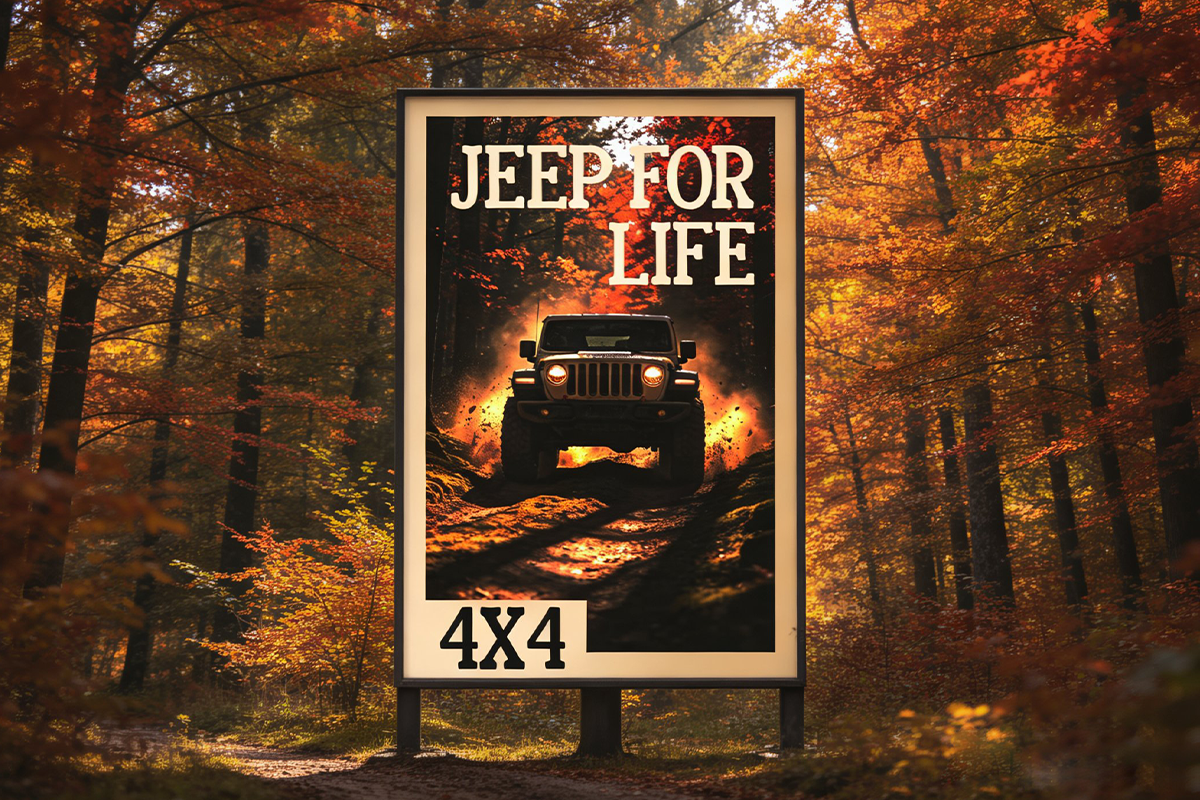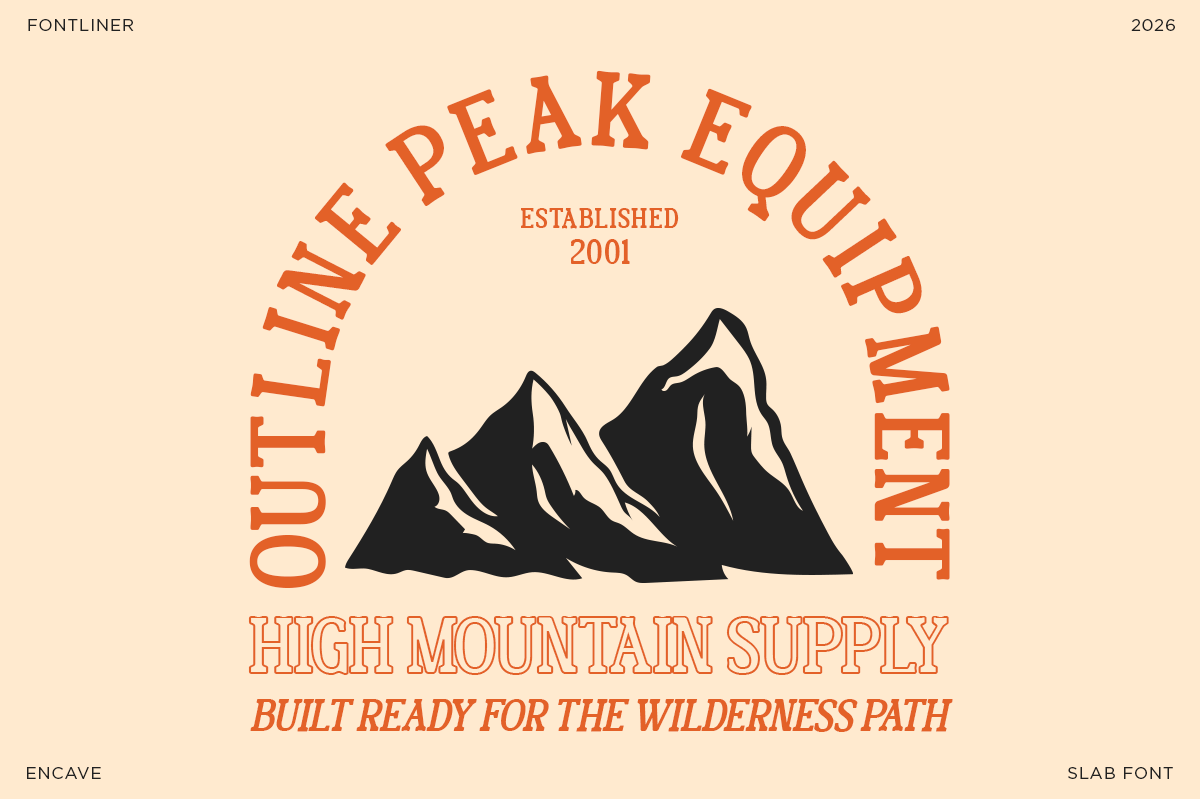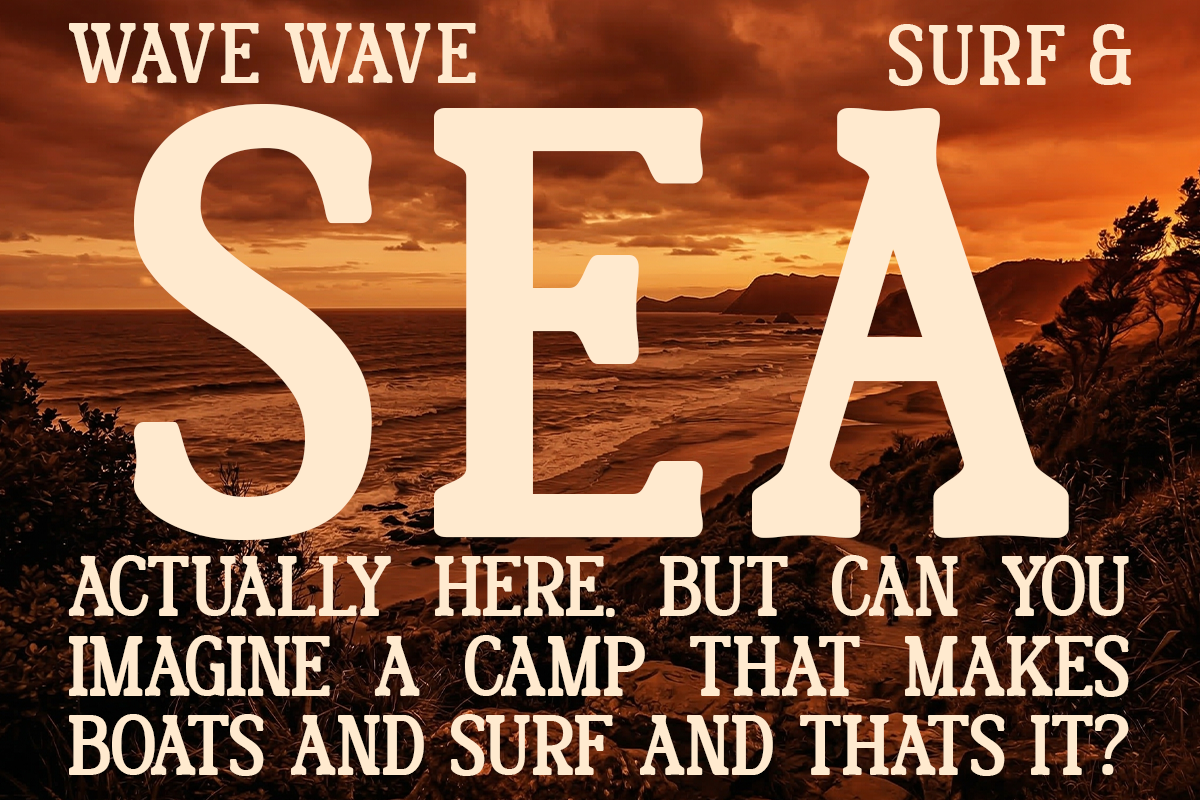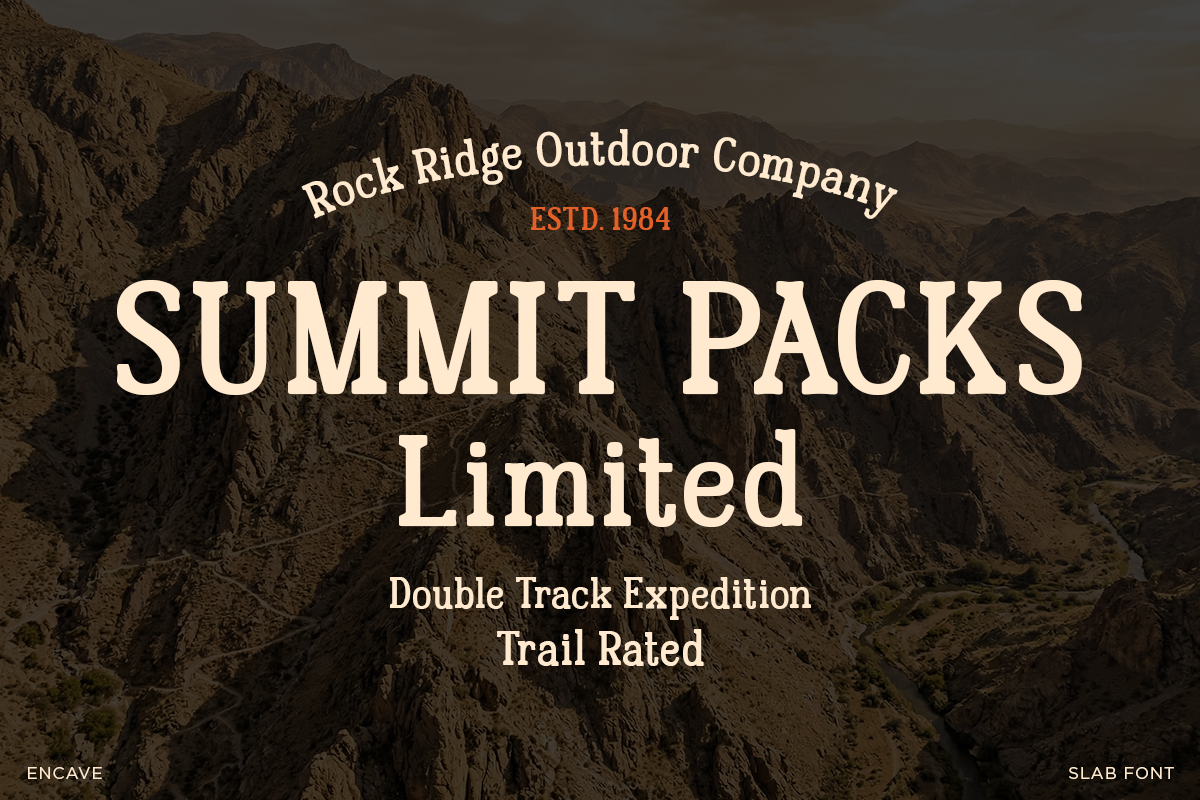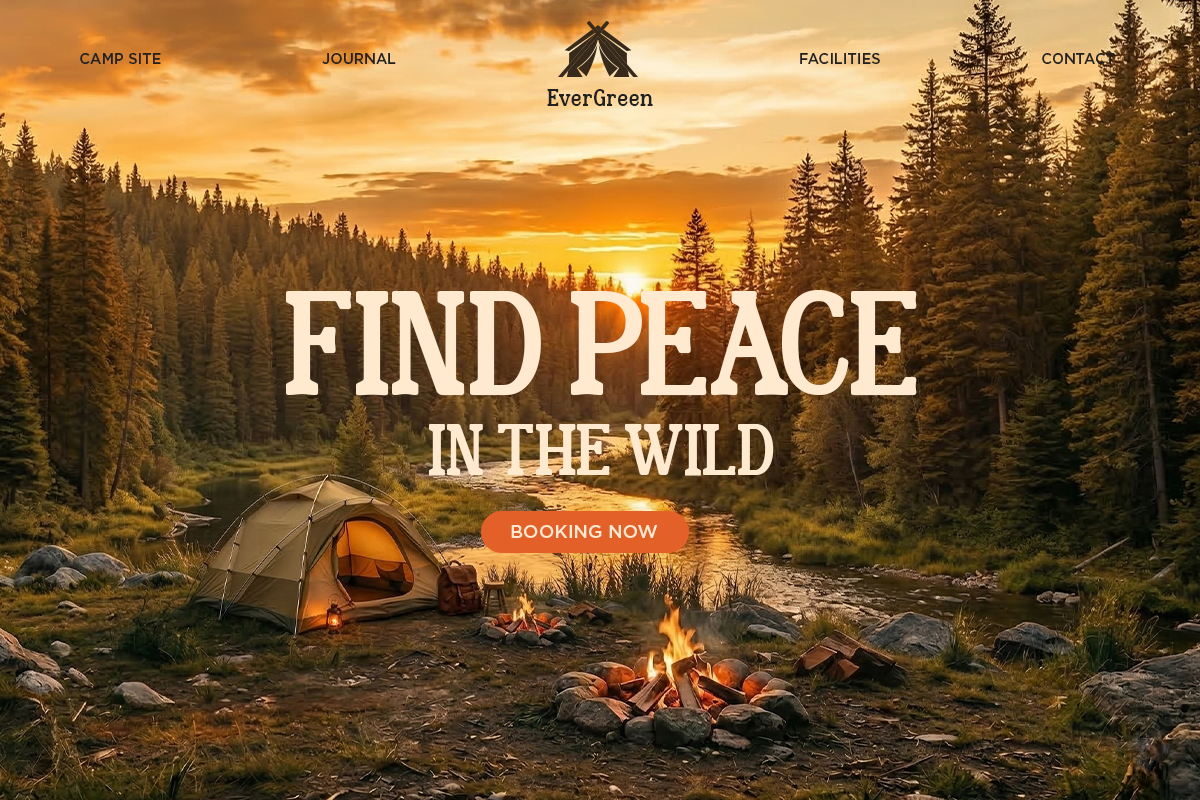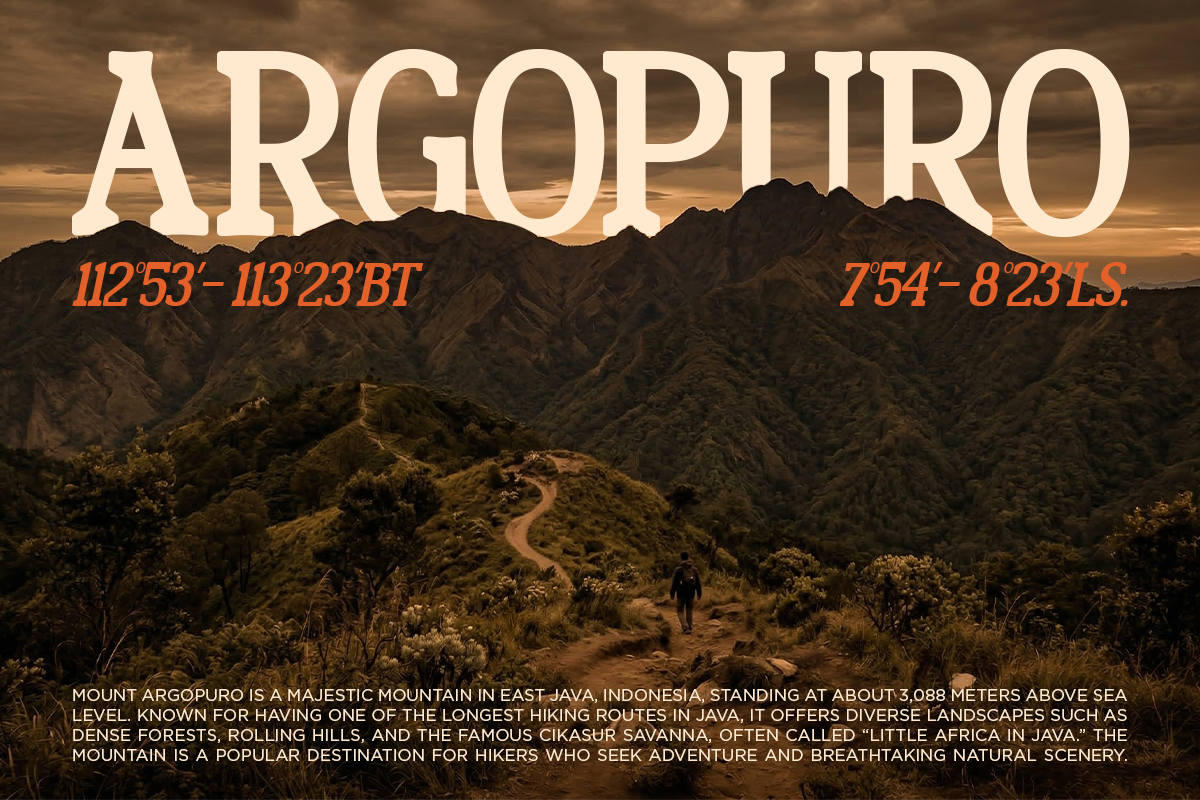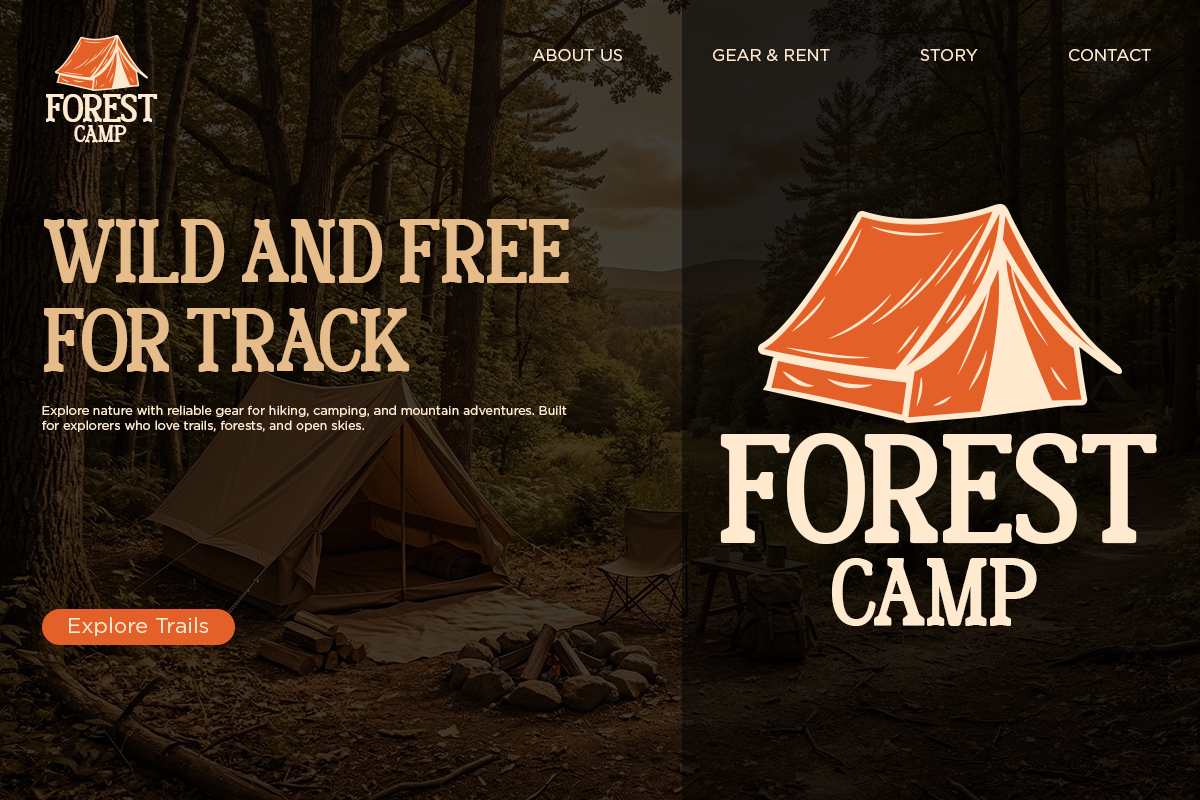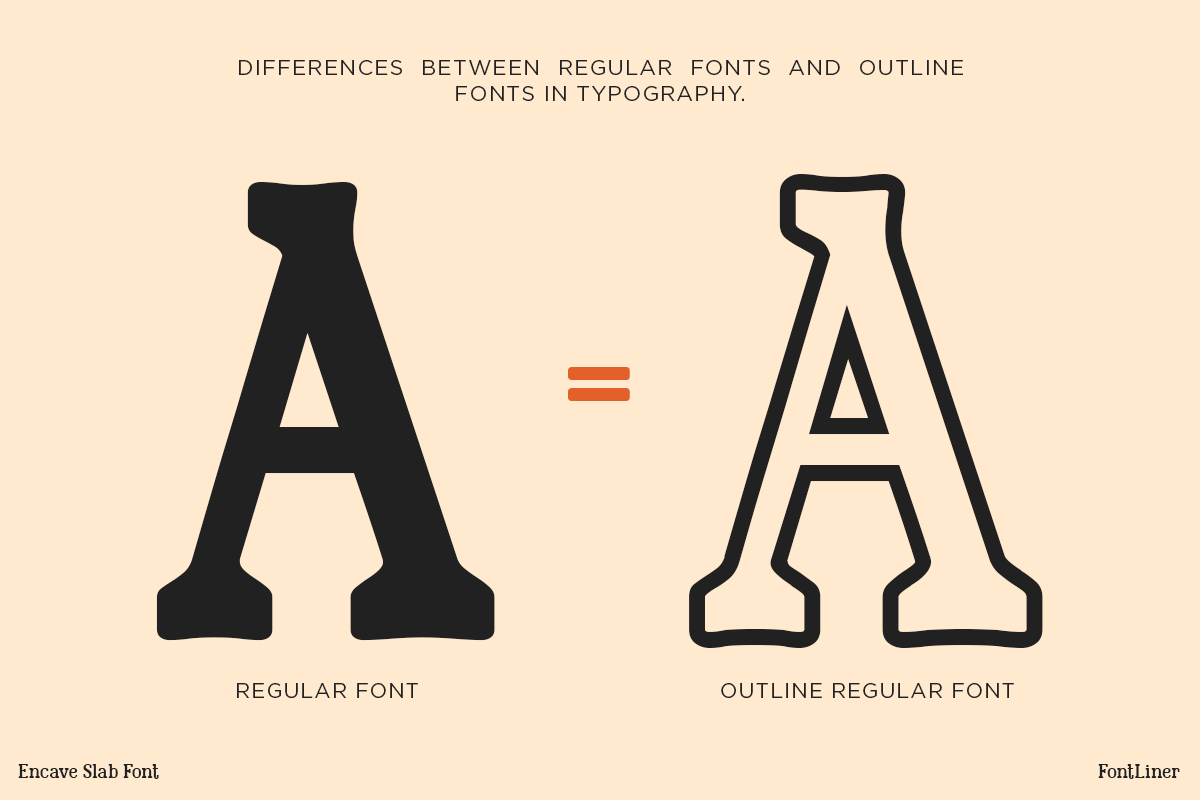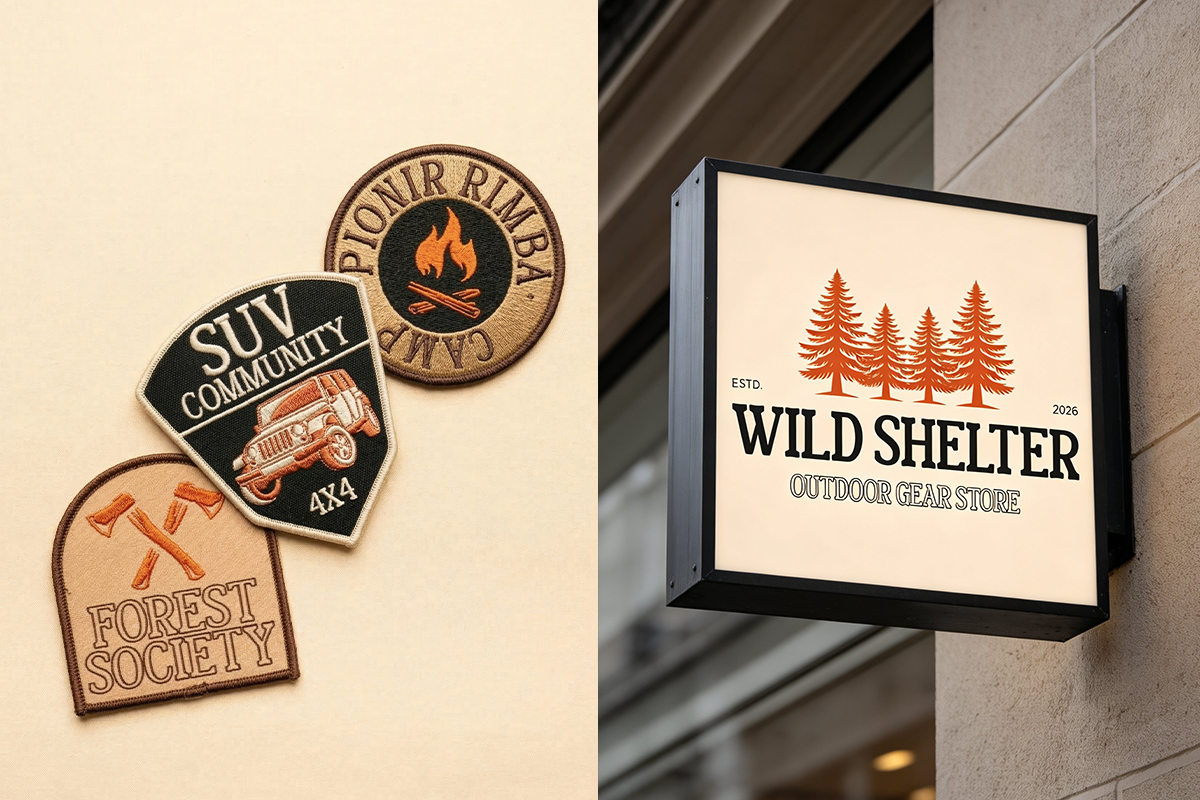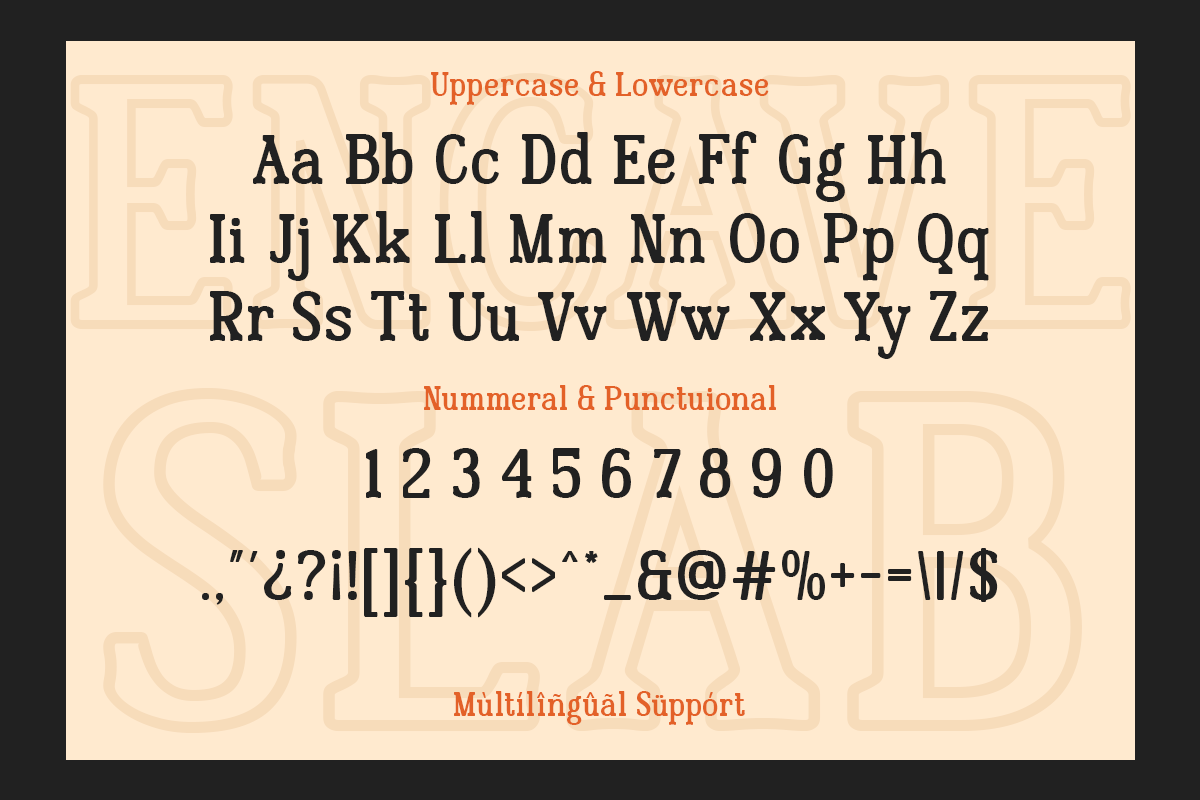
Encave - Slab Serif
Encave is a bold slab serif typeface that blends rugged character with modern structure. Inspired by strong, grounded typography, it delivers a powerful visual presence while maintaining a clean and contemporary feel. Its sturdy serifs and confident letterforms make it perfect for designs that demand attention and authority.
Built for impact, Encave performs exceptionally well in branding, posters, headlines, and packaging. Whether you're creating outdoor-themed visuals, vintage-inspired layouts, or bold modern identities, this typeface adapts effortlessly. It carries a masculine, solid tone while still offering enough refinement for versatile creative use.
With multiple styles available, Encave gives designers the flexibility to explore different moods within the same strong foundation. From bold headlines to structured layouts, it ensures consistency, readability, and a distinctive visual identity across all design applications.
- Uppercase, Lowercase & Ligatures
- Symbol, Number and Multilingual Support